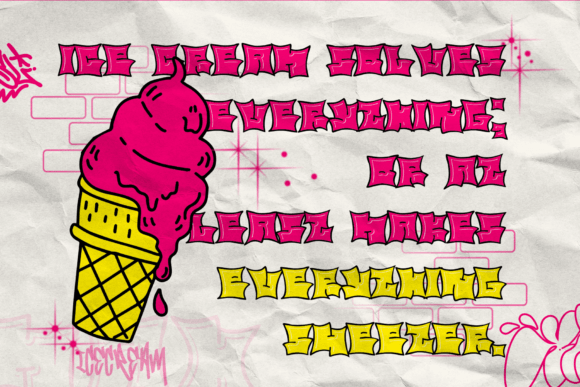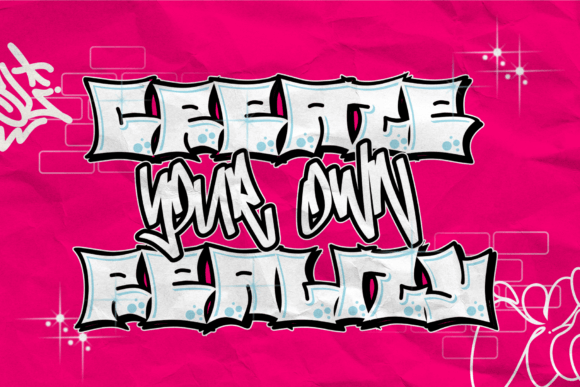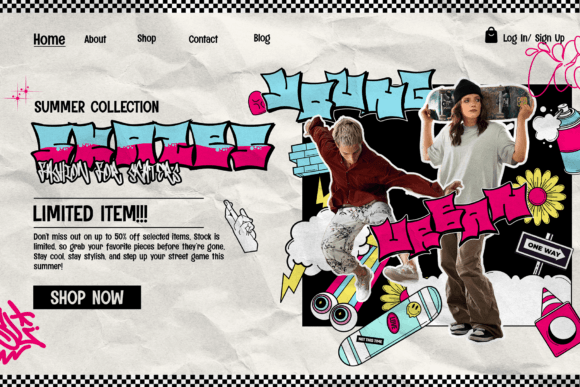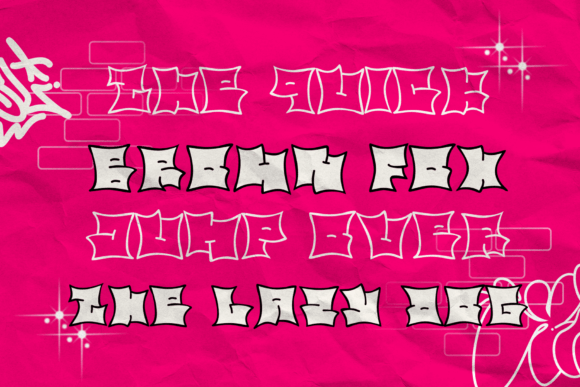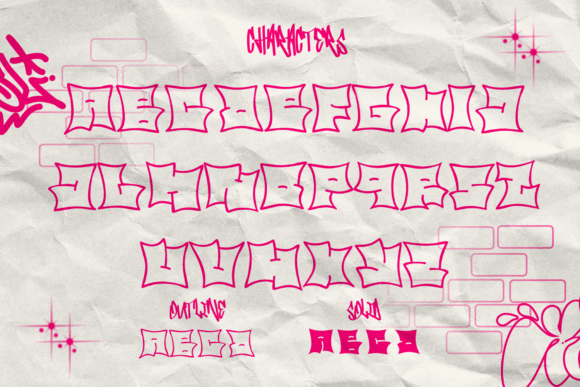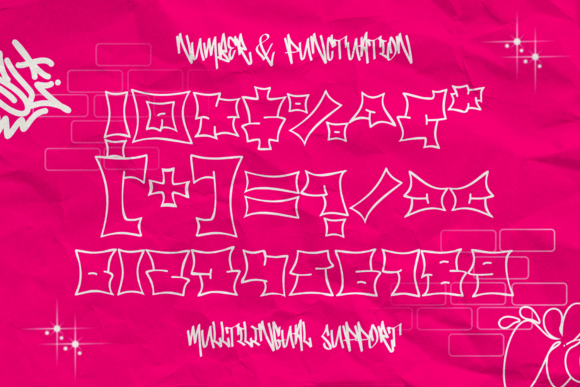
Unleash the Power of Graffiti with Bare Cube Font
In the world of design, fonts play a crucial role in conveying the message and tone of a project. For those looking to add a touch of urban grit and modern edge to their work, the Bare Cube font is an excellent choice. This daring laureate of graffiti-esque charm is perfect for designers and crafters seeking to make a bold statement.
The Unique Styles of Bare Cube
Bare Cube epitomizes a definitive modern edge in two unique styles: crisp outlined and forceful solid. These two styles offer versatility and flexibility, allowing designers to experiment with different looks and feels to suit their projects.
Crisp Outlined Style: Edgy Sharpness
The outlined style of Bare Cube is perfect for those who want to add an edgy sharpness to their designs. This style crafts intense visual experiences, making it ideal for urban-centric campaigns, street art designs, and stirring headlines. The crisp lines and bold shapes of the outlined style create a sense of depth and dimensionality, adding a layer of complexity to any design.
Forceful Solid Style: Commanding and Courageous
On the other hand, the solid style of Bare Cube exudes a commanding and courageous look. This style is perfect for designers who want to make a bold statement and grab the attention of their audience. The thick, smooth characters of the solid style radiate a potent graffiti essence, making it ideal for posters, branding, and every creative endeavor that craves a daringly bold and contemporary touch.
The Benefits of Bare Cube Font
Bare Cube font offers a range of benefits for designers and crafters. Some of the key advantages of using Bare Cube include:
• Urban-centric appeal: Bare Cube’s graffiti-esque charm makes it perfect for urban-centric campaigns and designs.
• Versatility: The two unique styles of Bare Cube offer flexibility and versatility, allowing designers to experiment with different looks and feels.
• Bold and attention-grabbing: Bare Cube’s thick, smooth characters are perfect for making a bold statement and grabbing the attention of your audience.
• Perfect for street art and posters: Bare Cube’s potent graffiti essence makes it ideal for street art designs, posters, and other creative endeavors.
How to Use Bare Cube Font in Your Designs
Using Bare Cube font in your designs is easy. Here are a few tips to get you started:
• Pair with other fonts: Bare Cube pairs well with other fonts, especially those with a similar urban or graffiti-inspired aesthetic.
• Experiment with colors: Bare Cube looks great in bold, bright colors. Experiment with different color schemes to find the one that works best for your design.
• Use for headlines and titles: Bare Cube’s bold and attention-grabbing style makes it perfect for headlines and titles.
• Add texture and depth: Consider adding texture and depth to your design by layering Bare Cube with other elements or using it in conjunction with images.
In conclusion, Bare Cube font is a powerful tool for designers and crafters looking to add a touch of urban grit and modern edge to their work. With its two unique styles, versatility, and bold and attention-grabbing aesthetic, Bare Cube is perfect for a range of design projects, from urban-centric campaigns to street art designs and posters. So why not give Bare Cube a try and let graffiti speak through your designs?